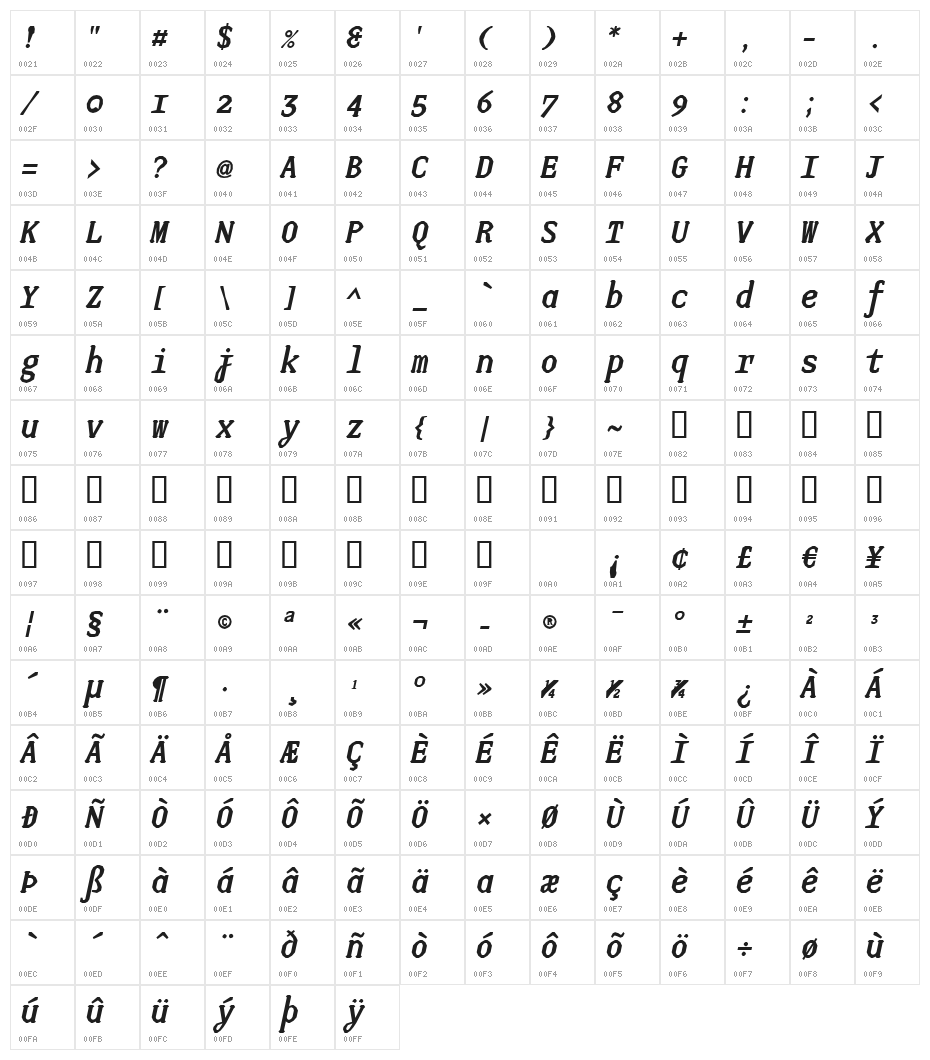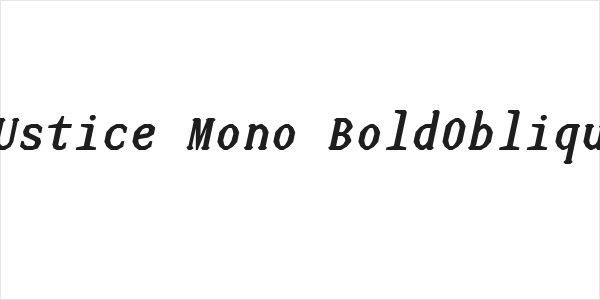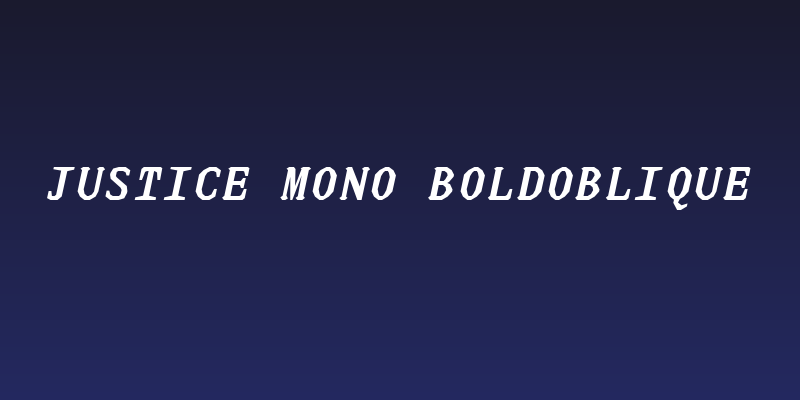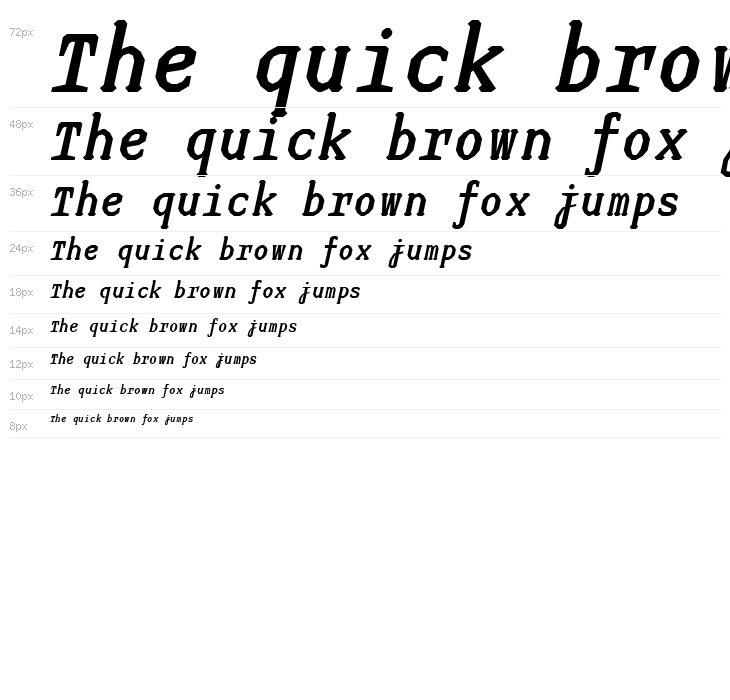
JUstice Mono BoldOblique Font
JUstice Mono BoldOblique Description
This font features a bold and oblique style, characterized by its monospaced design. Each character maintains a consistent width, which is typical of monospaced fonts, making it ideal for coding and tabular data. The bold weight adds a strong presence, while the oblique angle introduces a dynamic and forward-leaning appearance. The characters are well-defined with a moderate contrast in stroke thickness, providing clarity and readability. The overall style is modern and functional, suitable for both digital and print media. Its distinct appearance makes it versatile for various design projects.
| Use Case | Headlines, Coding, Technical documentation |
| Proposed Projects | Ideal for coding, technical documentation, and design projects requiring a bold and structured appearance. |